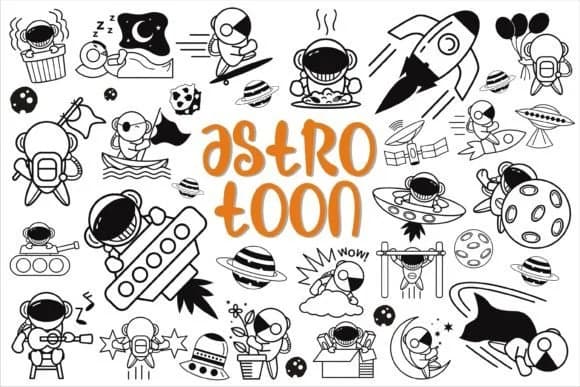
1 / 4About Space Galaxy Font
This font brings whimsy and wonder to cosmic storytelling. Space Galaxy, designed by edywiyonopp, is a playful dingbat collection built for designers who want to inject personality into space-themed work. The character set draws inspiration from astronomy, alien life, rockets, and the endless expanse of the cosmos, giving you a toolkit for any project that embraces the imaginative side of space exploration.
Use it for children's astronomy book illustrations where playful icons enhance learning, sci-fi podcast cover designs that need visual personality, alien-themed birthday party invitations, or retro rocket sticker sheets for craft projects. The collection works just as well for planet-themed classroom posters, DIY space-adventure journal covers, or quirky social media graphics about the night sky. Because it's a dingbat font, each character is essentially a standalone illustration, so you can mix and match to create compositions that feel custom-made without the design effort of drawing from scratch.
Pair Space Galaxy with a modern, clean sans-serif for any body copy or callout text you need alongside it. The combination keeps your cosmic imagery front and center while maintaining excellent readability. Head to Creative Fabrica to download Space Galaxy and start weaving cosmic charm into your designs.
Space Galaxy Font
by edywiyonopp